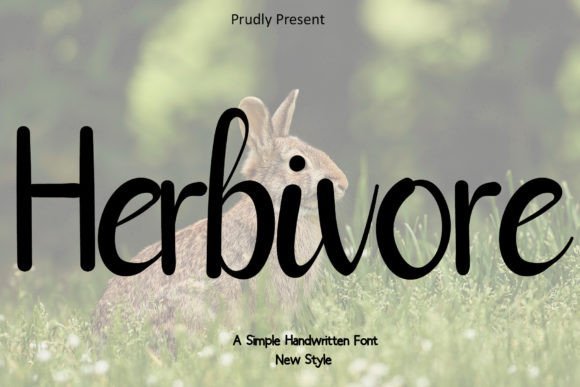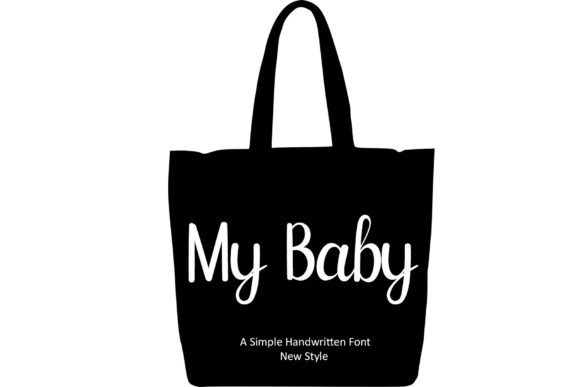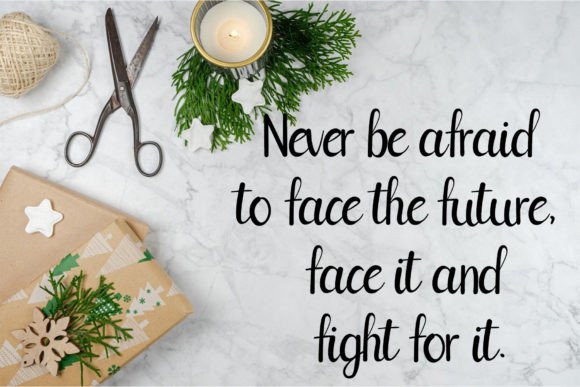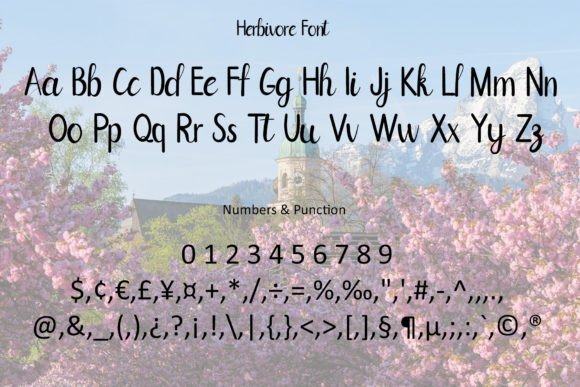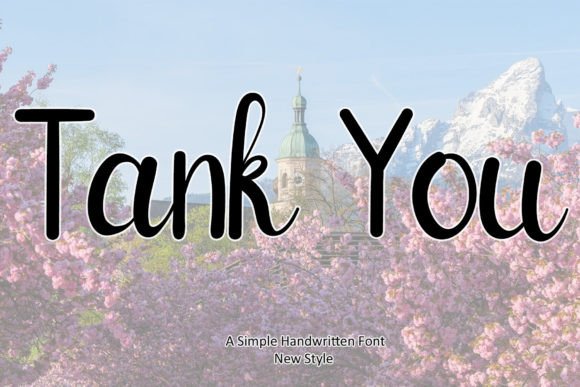
The Perfect Font for a Touch of Elegance
Have you ever found yourself pouring over a blank page, searching for the perfect font to elevate your design? You know the feeling – that moment when the right combination of style and charm comes together to transport your text to a whole new level. For designers, this is often the moment of truth, where the entire project hinges on the choice of font.
Enter the Herbivore Font, a tastefully elegant calligraphic script font that brings a touch of sophistication to your text. With its gentle strokes and flowing curves, this font is perfect for invitations, cards, or any project that demands a refined and delightful touch. Whether you’re a seasoned designer or just starting out, the Herbivore Font is an invaluable addition to your toolkit, offering a sweet and luxurious feel to your designs.
Key Features of Herbivore Font
- Unique Characteristics: Herbivore Font features a unique blend of modern and organic elements, with subtle texture and imperfections that give it a hand-drawn feel.
Review of Herbivore Font
Overall, I think Herbivore Font has some interesting characteristics that could make it a great choice for certain designs. ✨ The font’s playful, hand-drawn feel could work well for projects that need a bit of whimsy, like children’s books or food labels.
- ✨ Herbivore Font has a unique, natural feel that sets it apart from more generic sans-serif fonts.
- ✨ The font’s irregularities and imperfections can add a touch of character to designs.
However, there are some limitations to consider. ⚠️ The font may not be suitable for designs where precision and consistency are crucial, like financial reports or technical manuals.
- ⚠️ The font’s irregularities can also make it difficult to read at small sizes or in certain contexts.
- ⚠️ The font’s limited character set may make it less versatile than other options.
In terms of overall impression, I think Herbivore Font is a fun and quirky choice that could add some personality to designs. However, it’s essential to consider the specific needs and context of your project before choosing this font.
Tips for Getting the Most Out of the Herbivore Font
Here are some tips to help you get the most out of the Herbivore Font:
- Use the font in combination with other design elements to create a cohesive look.
- Experiment with different font sizes and styles to add visual interest to your design.
- Use the font to create a consistent brand identity across your marketing materials.
The Herbivore Font is commonly used in:
- Health and wellness marketing
- Environmental and eco-friendly design
Alternatives to Herbivore Font for Designers
Great Vibes is a modern, elegant, and handwritten font. It’s ideal for use in logos, branding, and advertising materials where a touch of sophistication is required. Great Vibes is more versatile than Herbivore Font, with a wider range of style options and better legibility.
Compared to Herbivore Font, Great Vibes has a more refined and polished look, making it suitable for a broader range of applications.
Dancing Script is a beautiful, flowing, and elegant script font. It’s perfect for use in invitations, greeting cards, and other materials where a touch of whimsy and romance is required. Dancing Script is more cursive than Herbivore Font, with a more dynamic and expressive feel.